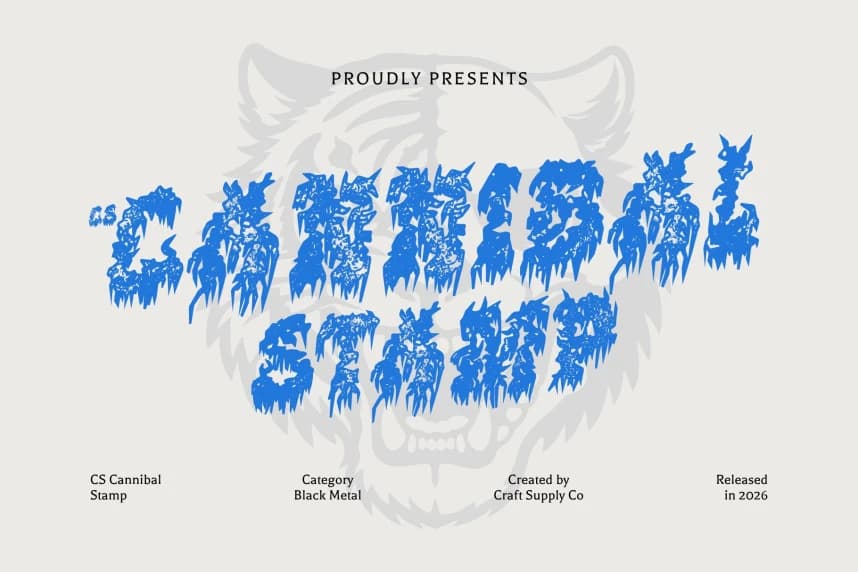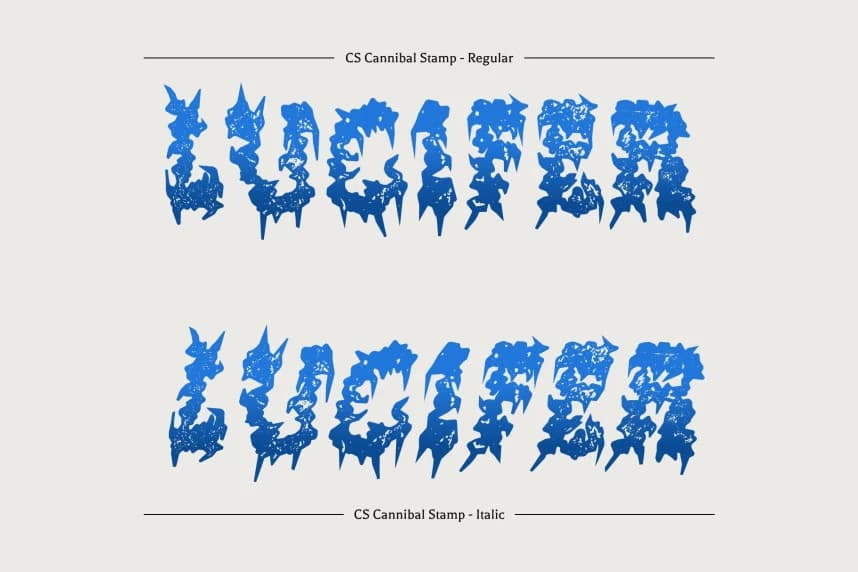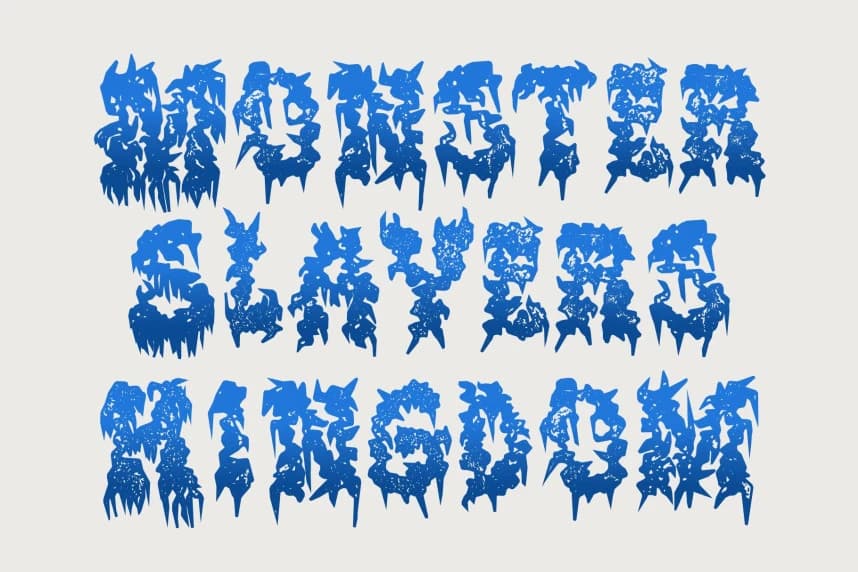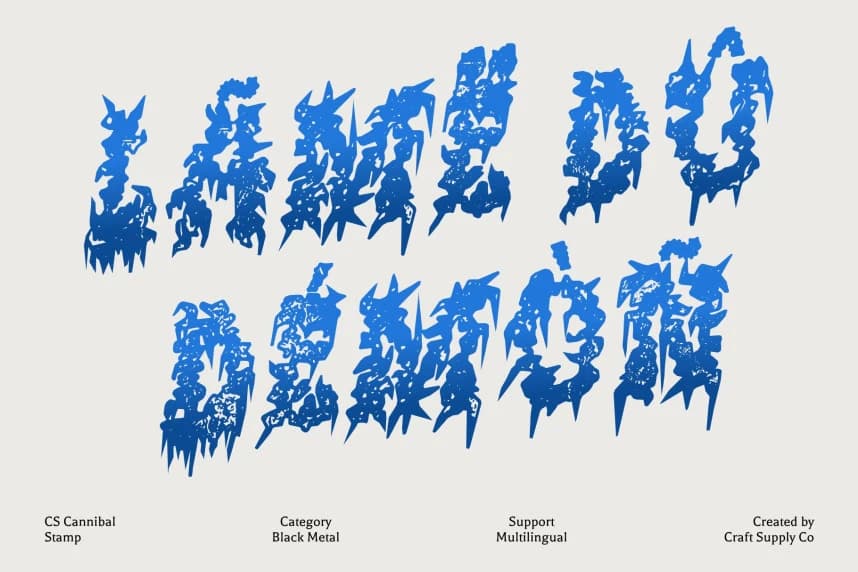
CS Cannibal Stamp Font
CS Cannibal Stamp Font – Black Metal Chaos with Vintage Brutality Brutal Black Metal Display Font with Raw Texture. This is a black metal display font designed to capture the raw intensity and dark mysticism of extreme metal aesthetics